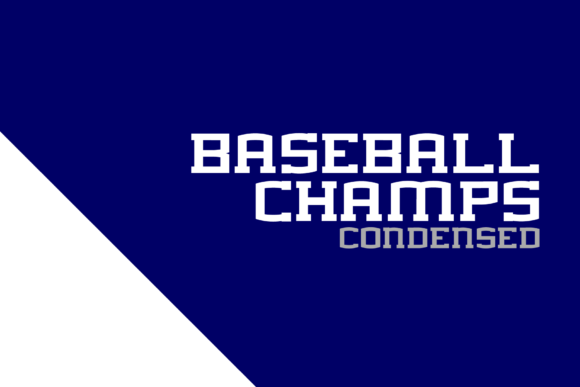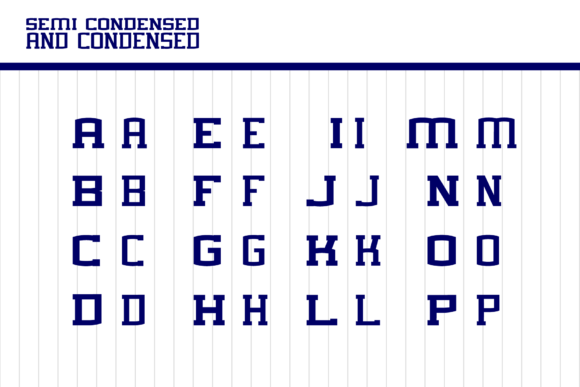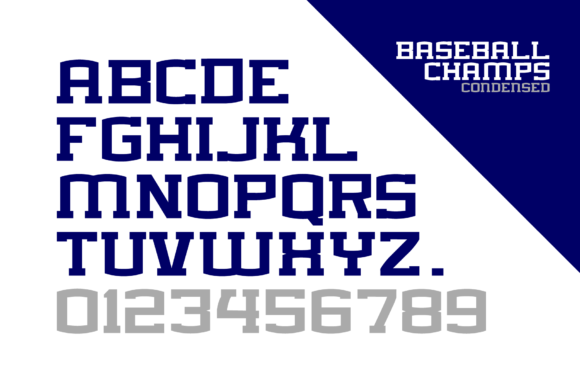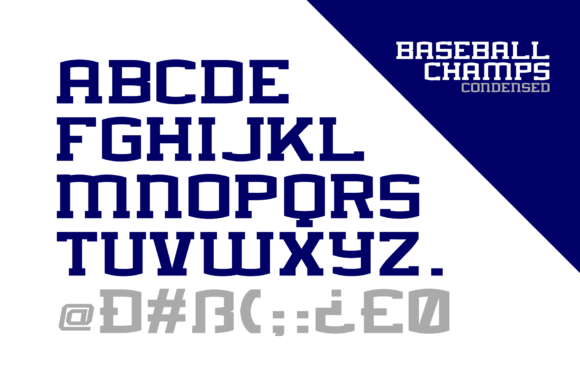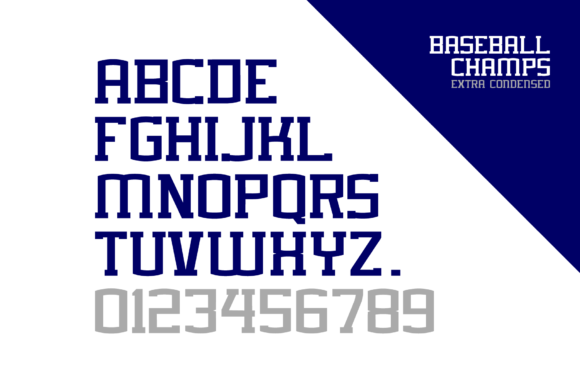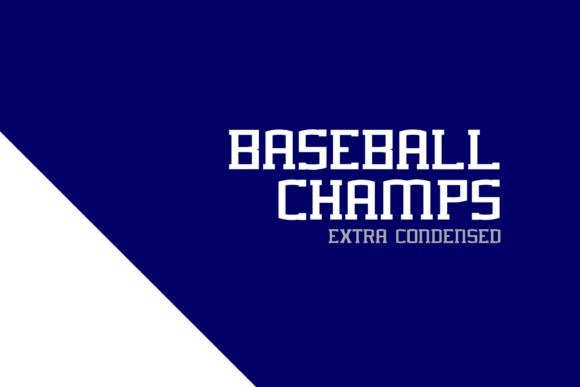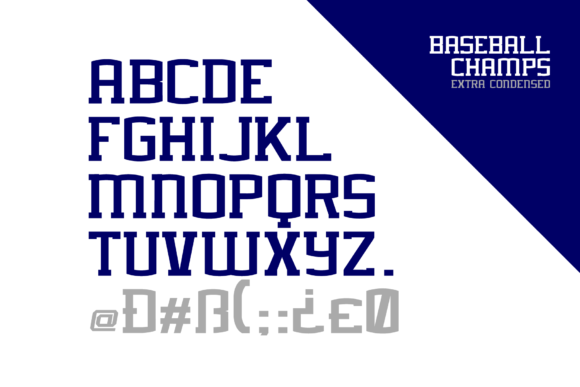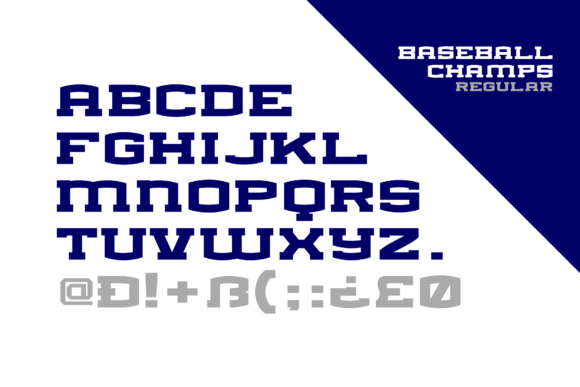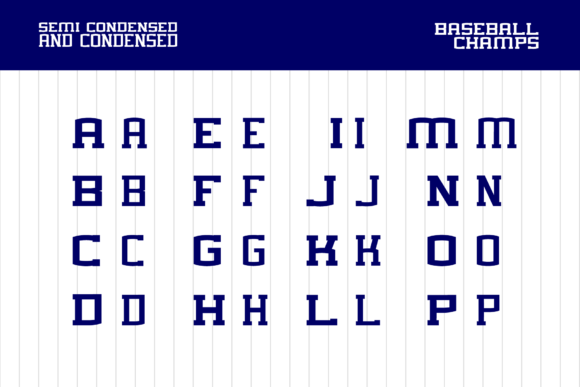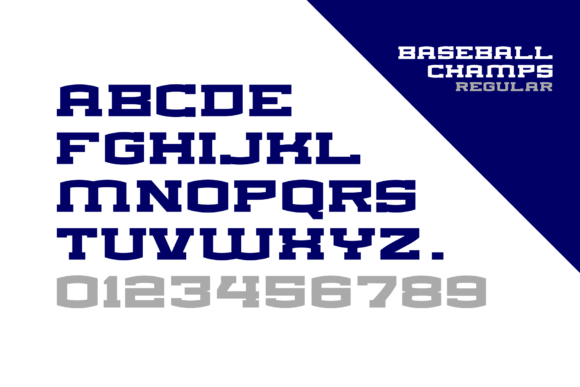
Baseball Champs
Baseball Champs: A Bold and Sporty Slab Serif Font
Baseball Champs is a distinctive slab serif font that combines boldness with a sporty aesthetic. This versatile typeface is designed to be an incredible asset to your font library, with the potential to elevate any creation regardless of the topic.
Key Features of Baseball Champs
• Bold Design: Features strong, eye-catching letterforms that command attention.
• Sporty Aesthetic: Incorporates elements reminiscent of sports typography, particularly baseball.
• Slab Serif Structure: Maintains the characteristic thick, rectangular serifs typical of slab serif fonts.
• Versatile Application: Suitable for a wide range of projects, from sports-related designs to various other topics.
• Elevating Quality: Designed to enhance and improve the visual appeal of any creative project.
Ideal Uses for Baseball Champs
Baseball Champs’ unique characteristics make it particularly well-suited for:
• Sports team branding and logo design
• Athletic event posters and promotional materials
• Sports merchandise and apparel design
• Energetic headlines and titles across various topics
• Bold website headers and digital content
When incorporating Baseball Champs into your designs, consider the following tips:
• Use for headlines or short blocks of text to maximize its bold and sporty impact
• Experiment with different sizes to highlight the font’s unique details
• Take advantage of its versatility across various themes and styles in your projects
Baseball Champs is an excellent choice for designers looking to add a bold and sporty slab serif font to their typographic toolkit. Its ability to enhance various design projects makes it stand out in the world of typography. Whether you’re working on logo designs, creating layouts for sports events, or developing content for any topic that requires a touch of energy and boldness, Baseball Champs offers the perfect blend of strength and versatility.
Add Baseball Champs to your font library and explore how it can elevate your designs with its bold and sporty style. From striking headlines to impactful branding elements, this font provides the tools to create memorable typography that resonates with audiences seeking a dynamic and powerful aesthetic. It’s versatile enough to be used in various contexts, from vintage-inspired designs with a sporty twist to cute and friendly layouts that need a touch of boldness.
Whether you’re creating a magical and mysterious atmosphere or aiming for a more thoughtful and introspective mood in your designs, Baseball Champs can adapt to your needs. Its flexibility allows it to work well in both rustic, vintage-style projects and holiday-themed designs that require a bold flair. For those looking to add a touch of nostalgia with a sporty feel, this font can even complement vintage Christmas-inspired creations with a unique, energetic twist.